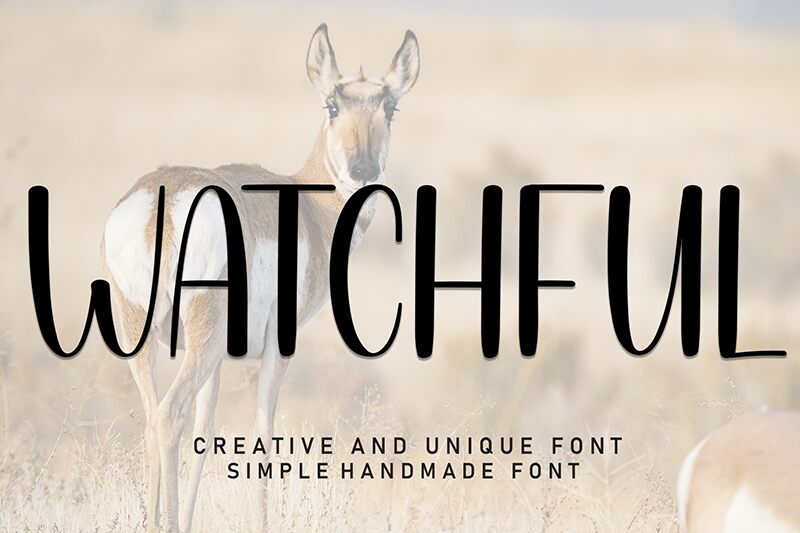
Watchful
Worry no more about adding that finishing touch to your projects with Watchful, the free handwritten script font designed by Andi Moz.
Its original display font style is perfect for logo creation (branding of clothing, perfumes, restaurants, businesses, etc.), packaging design, labels, social media posts, book cover design, movie posters, signature branding, apparel design, print design, wedding cards, photography design, letterpress or typography projects, and much more.